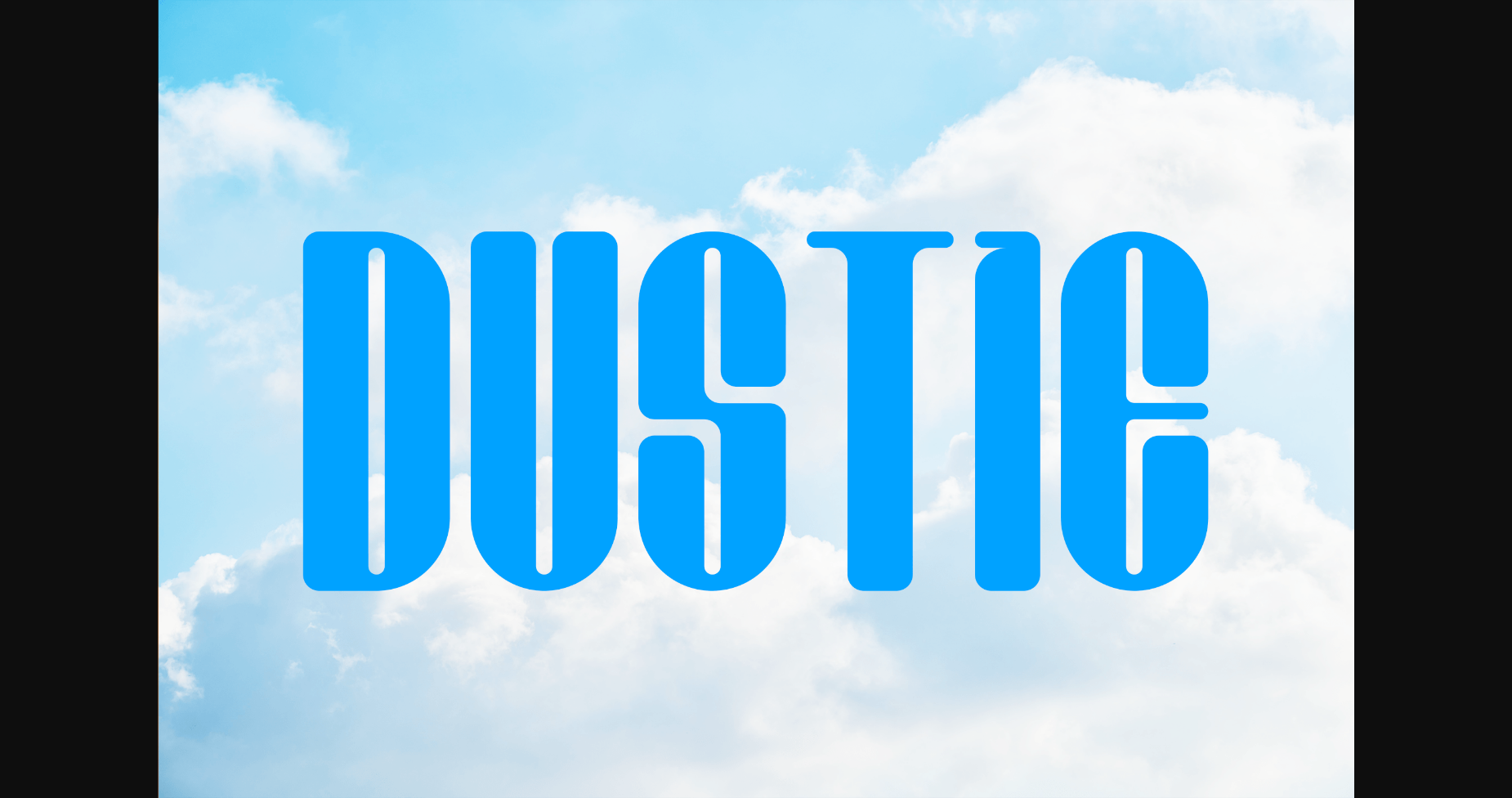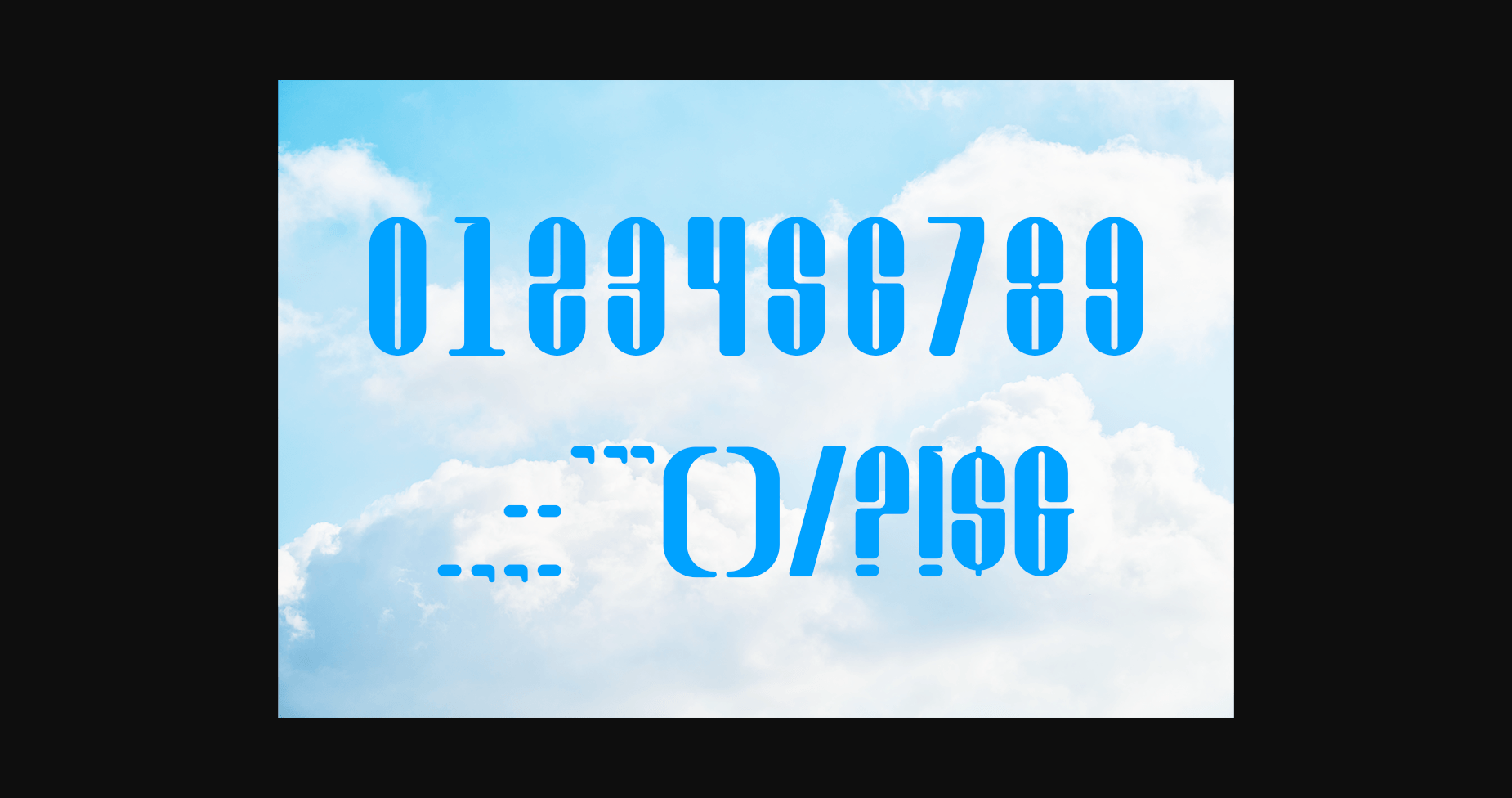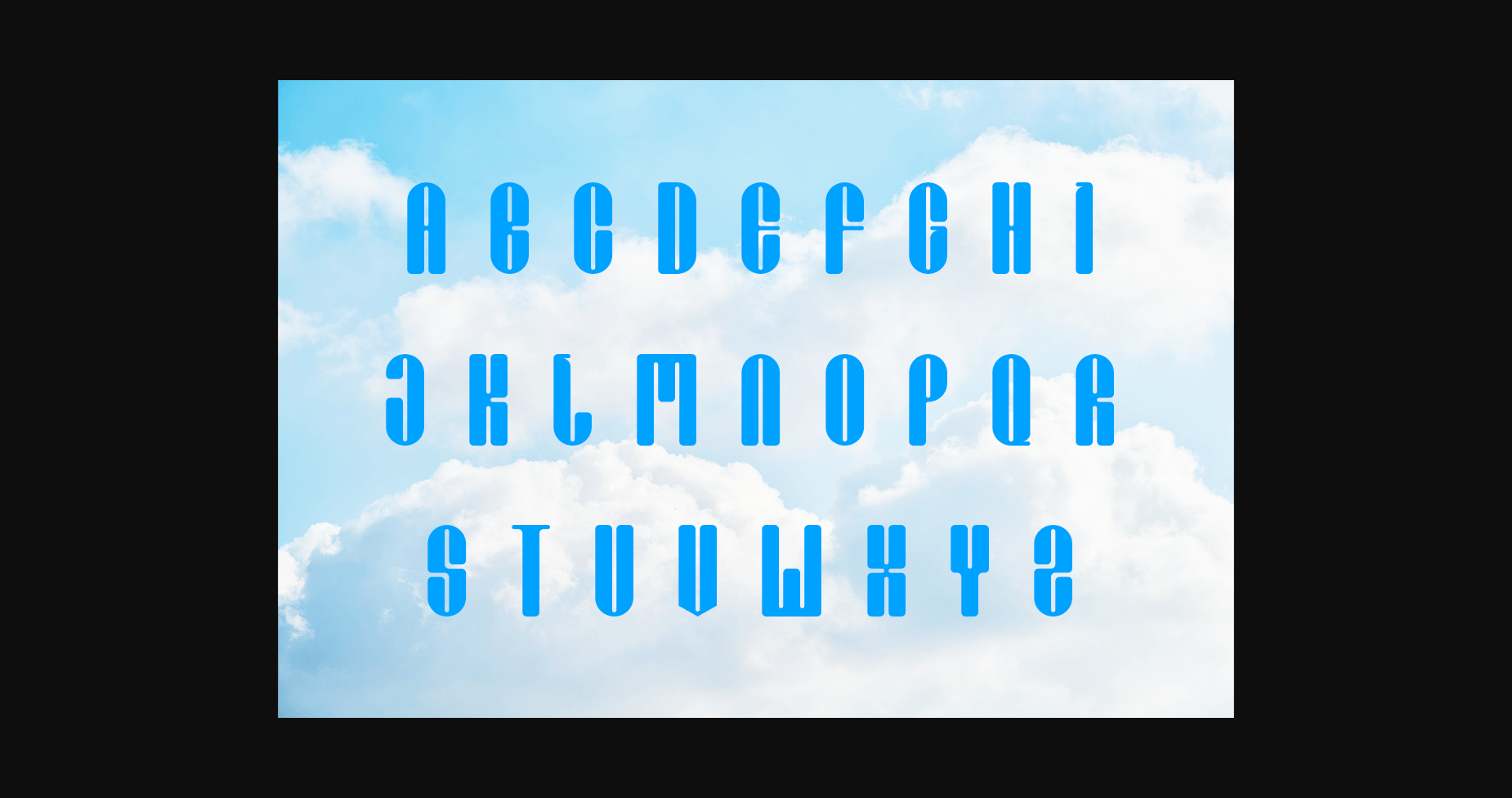
About Dustie Font
Dustie is a robust font designed to draw attention and highlight any project that requires a bold feel. Suitable for sports design, team, jersey, league, movie, documenter, film, logo, poster, game, book cover, headlines, title, and many more projects.